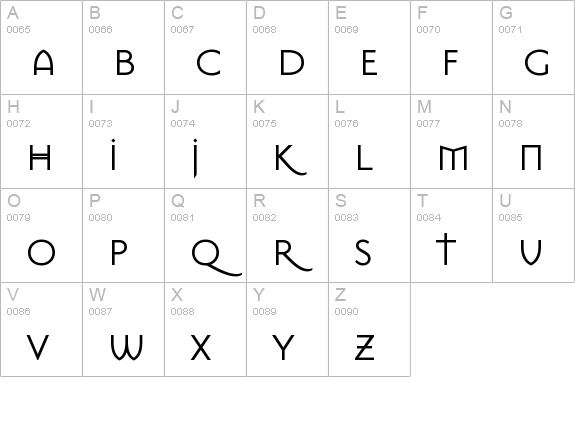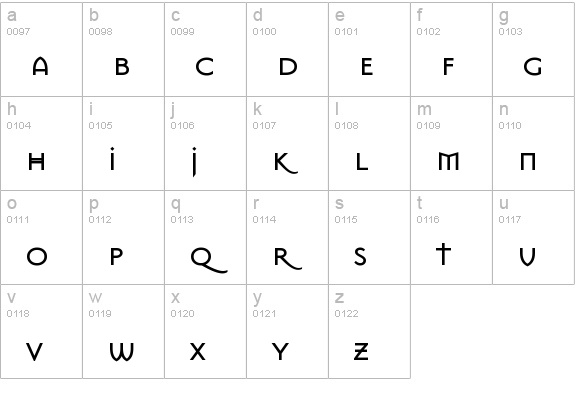
MasonSansRegular Font Details
MasonSansRegular is the standard, neutral variant in the MasonSansRegular typeface family \xE2\x80\x94 well suited to general body text, paragraphs, and standard typographic work.
MasonSansRegular font is a modern, versatile typeface that is perfect for a wide range of design projects. With its clean lines and balanced proportions, this font exudes a sense of professionalism and elegance. Whether you're designing a logo, creating a website, or crafting a brochure, MasonSansRegular font will provide a polished and sophisticated look. What sets MasonSansRegular font apart is its accessibility - it is freely available to download at FontsMarket.com. This means that you can easily incorporate this font into your designs without any cost. It's a fantastic opportunity to enhance your creativity without breaking the bank. The characters of MasonSansRegular font are meticulously crafted, ensuring legibility and readability in any size or context. Its wide range of weights and styles allow for endless possibilities and flexibility in design. Whether you need a bold and impactful headline or a sleek and subtle body text, MasonSansRegular font has you covered. In addition to its aesthetic appeal, MasonSansRegular font also boasts excellent language support. It covers a wide range of languages, making it a suitable choice for projects with international reach. Overall, MasonSansRegular font is a must-have for any designer looking to elevate their work. Its blend of modernity, versatility, and accessibility make it a valuable asset in any design arsenal. Don't miss out on the opportunity to download this font for free at FontsMarket.com and unlock a world of creative possibilities.